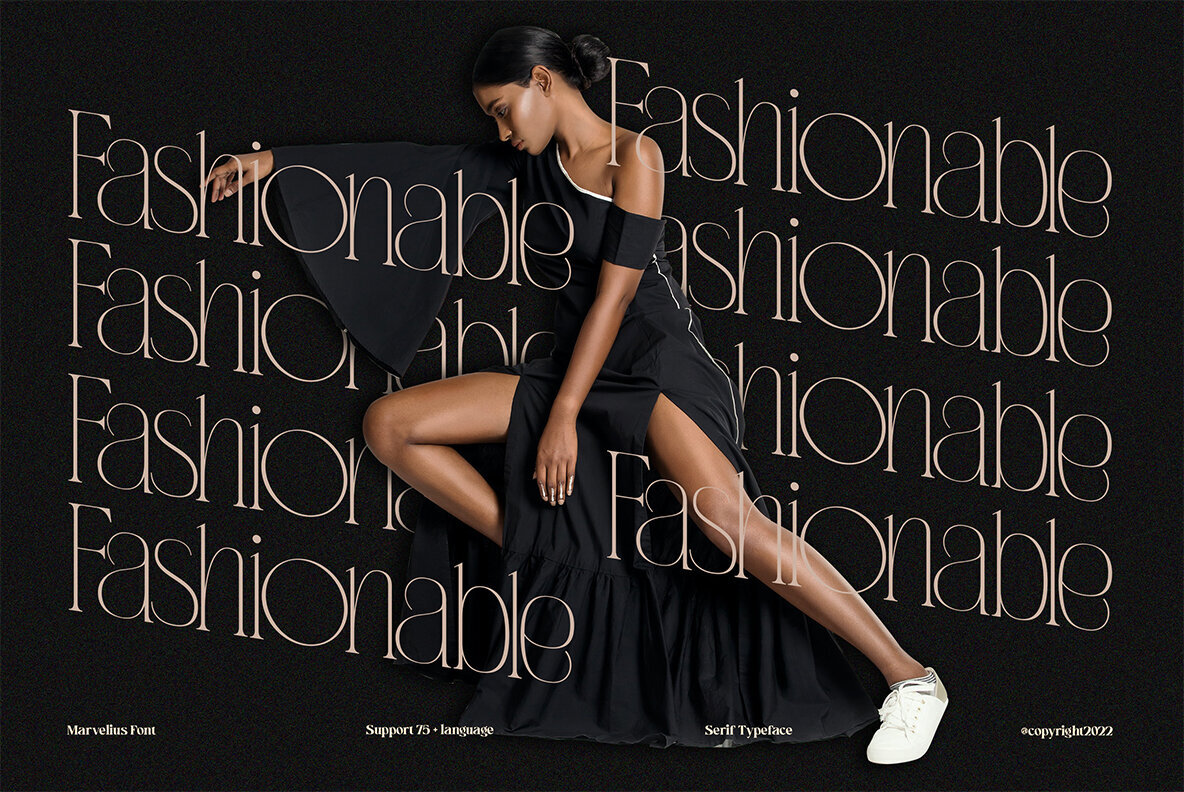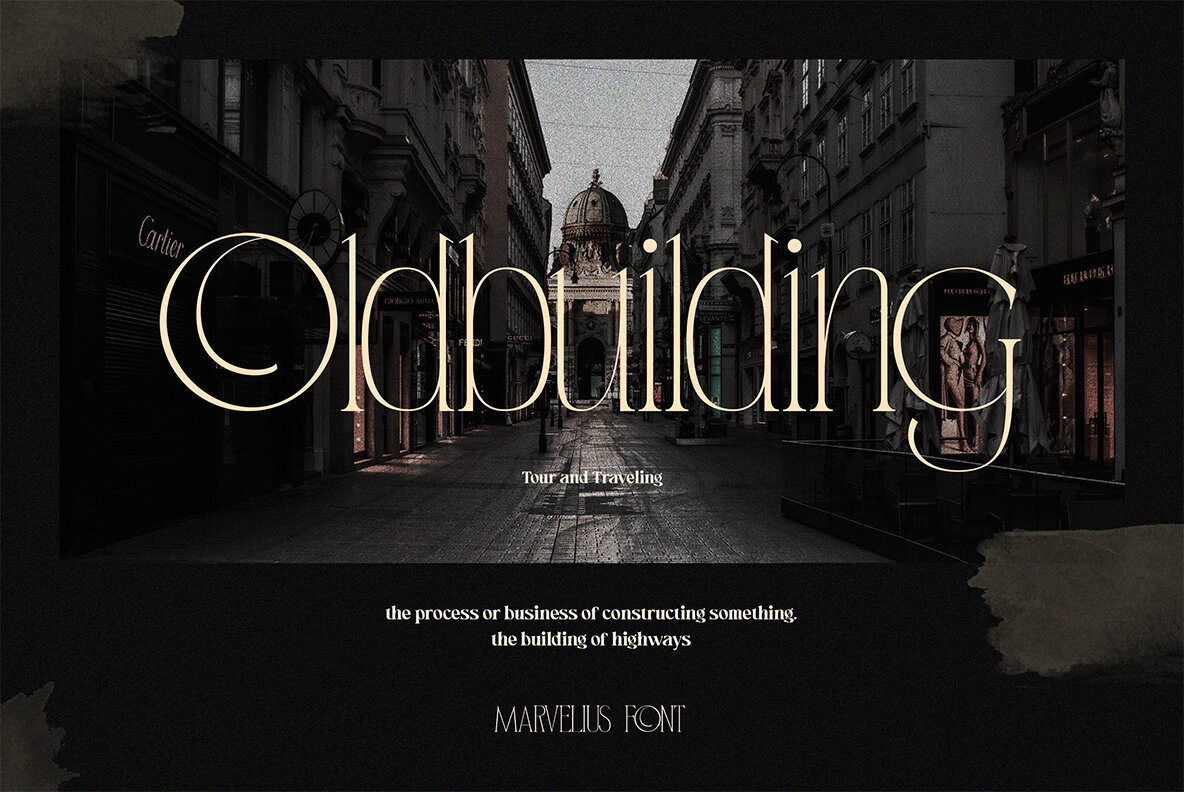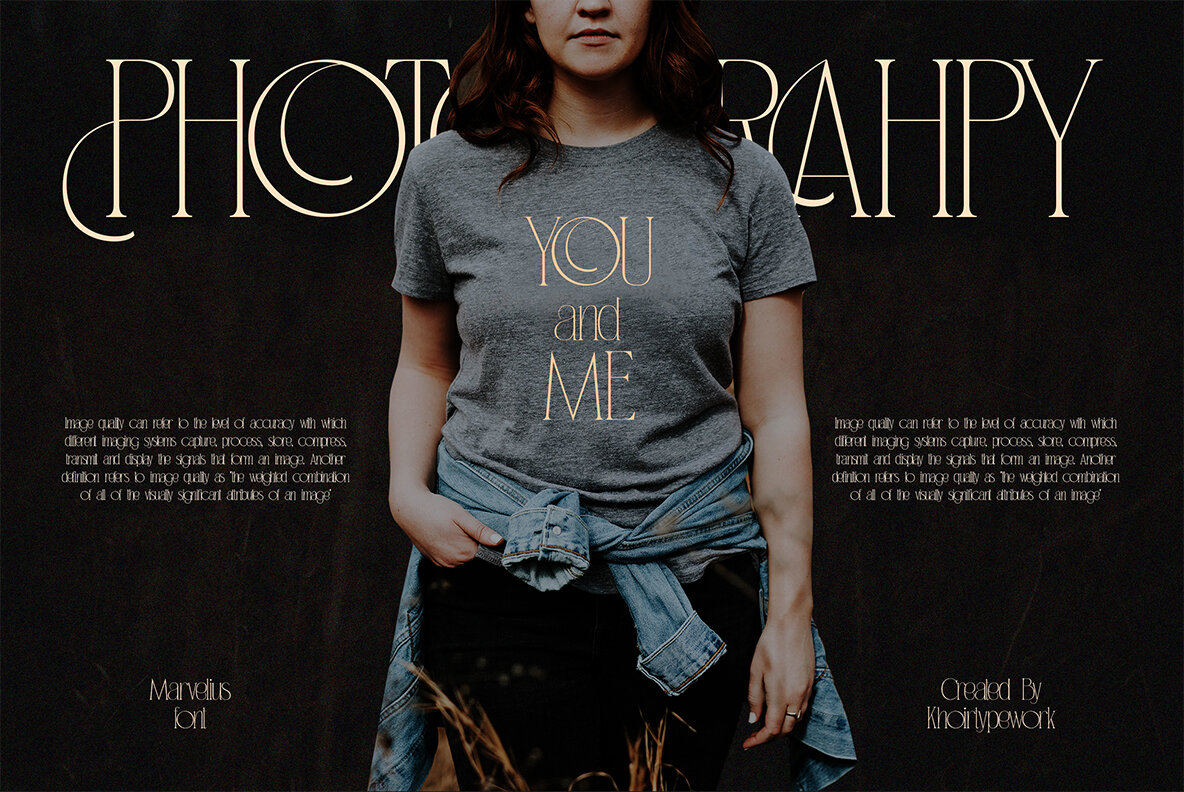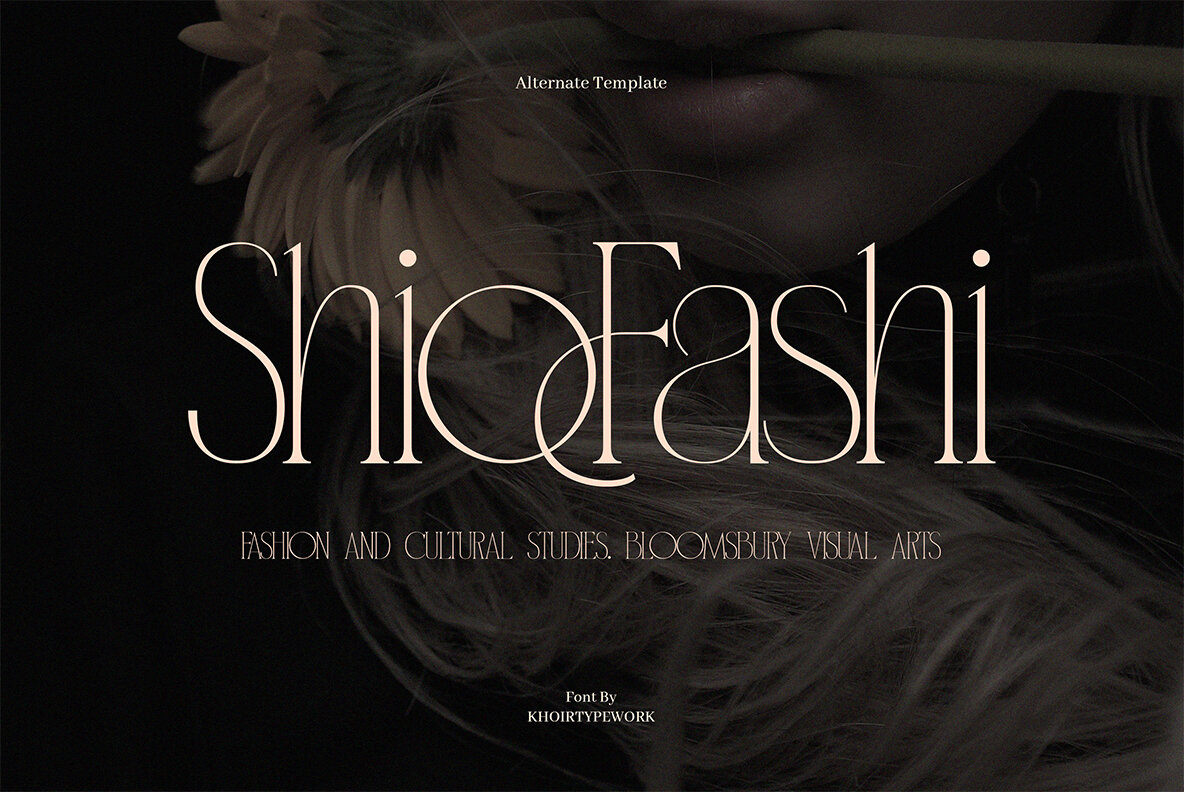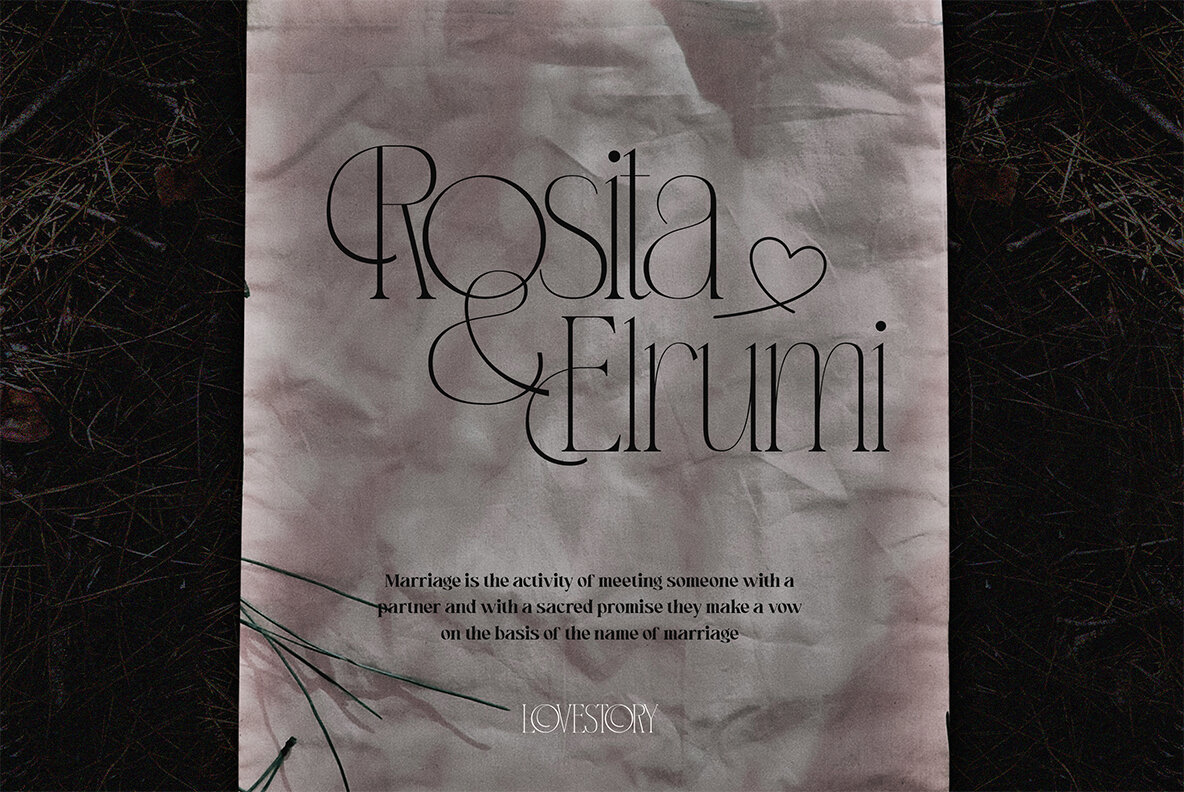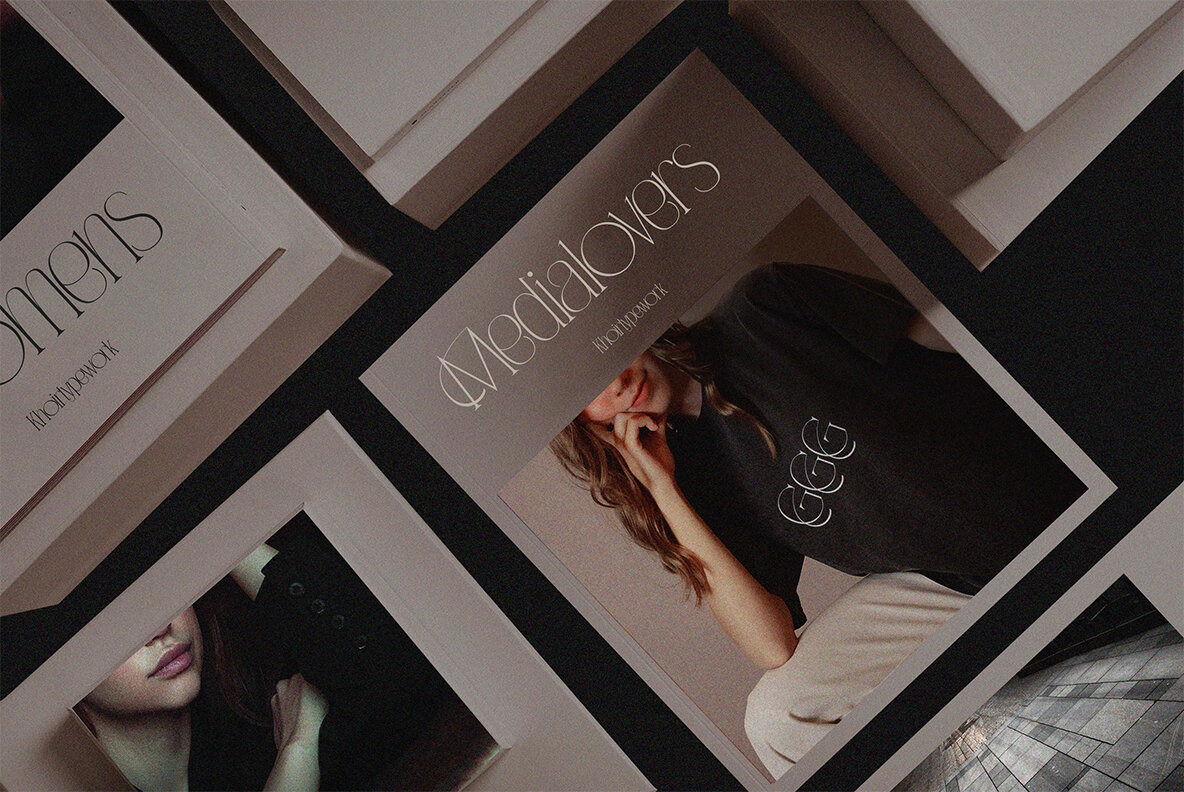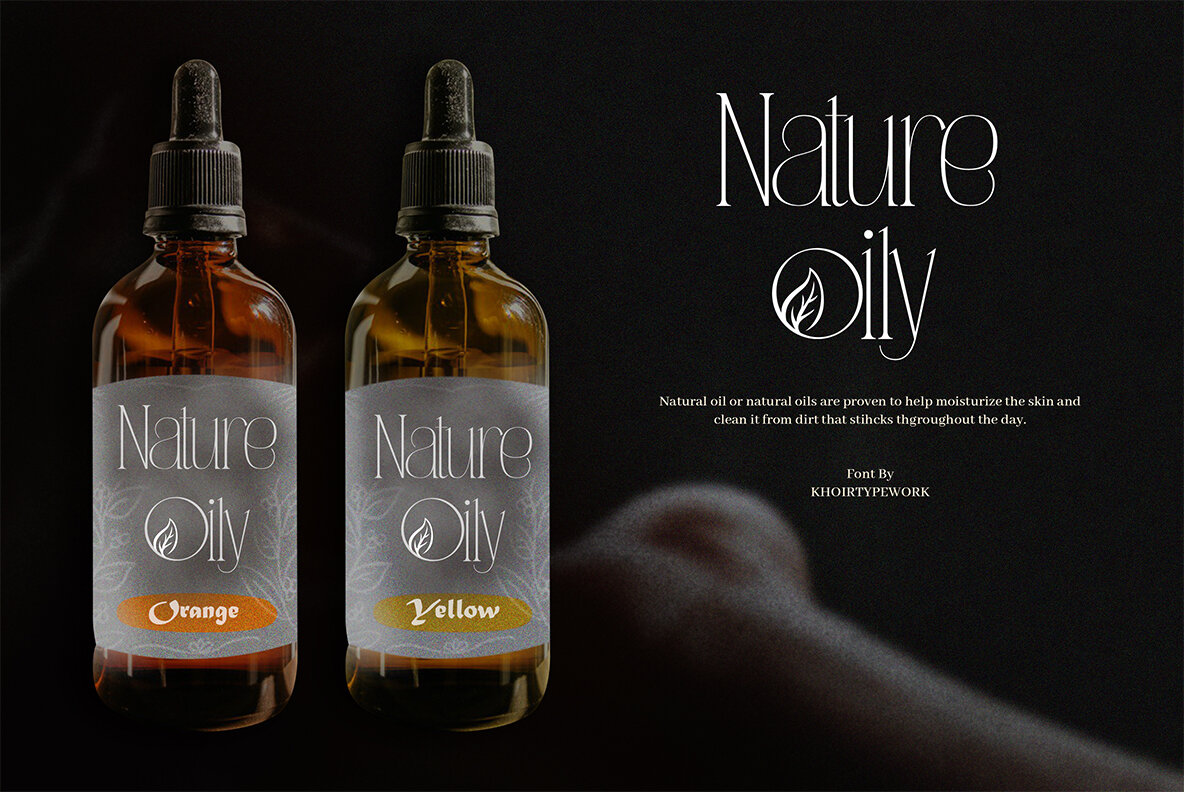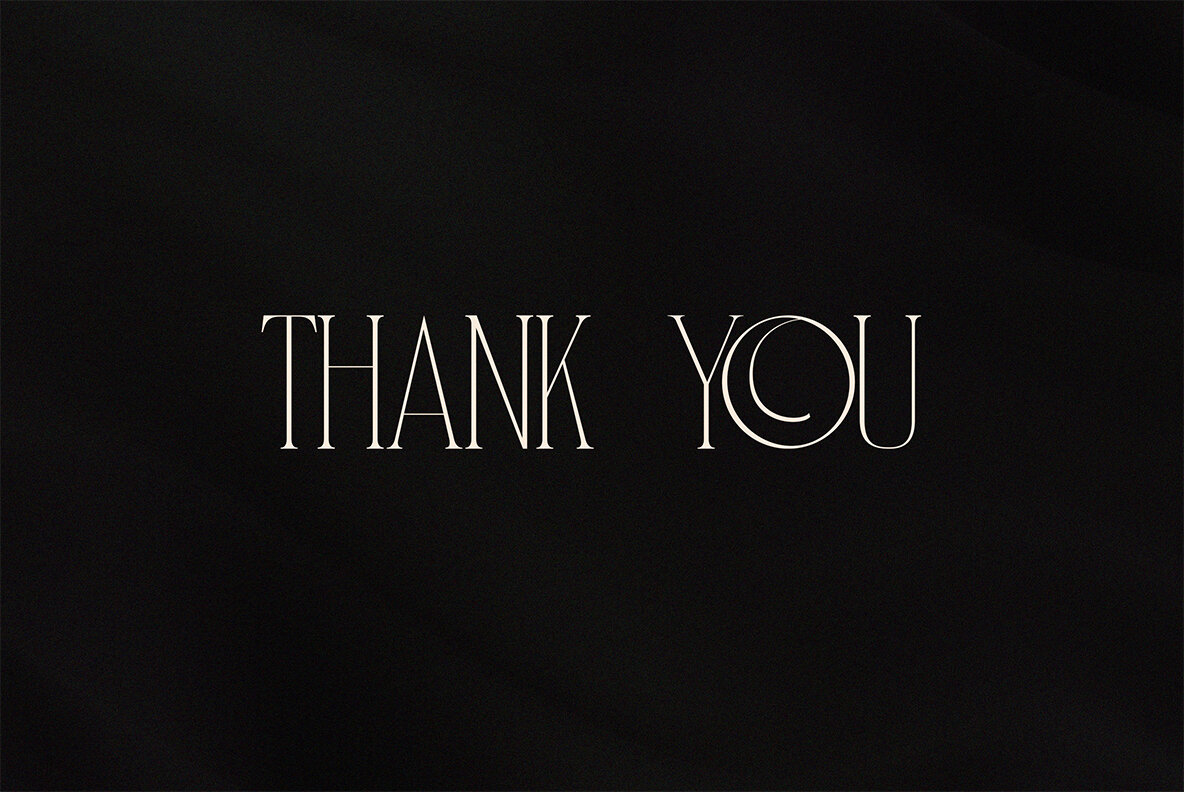
Marvelius Font
Marvelius Regular
Marvelius by Khoir Typework embodies elegance and sophistication. This serif font excels in conveying aesthetic beauty through each letter's design, offering a distinctive presence for varied projects. Ideal for creative works requiring an elegant tone, Marvelius ensures a unique visual experience. Features:Marvelius: Elegant Serif for Captivating Designs